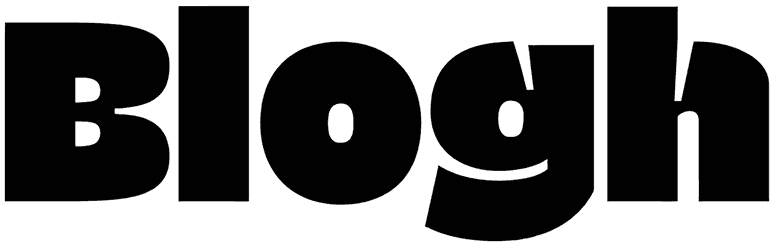
Blogh Font
Blogh is a fun, sociable sans serif font that has a classical feel. This font offers thick, bold characters that are heavy, plus they have a quirky design. The letterforms are exciting and very approachable, but they don’t contain any numbers! Add Blogh in banners, posters, flyers, branding, and websites for one relaxed and eye-catching typography!